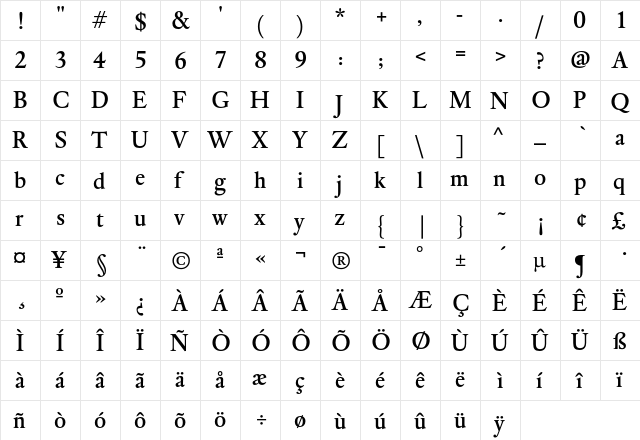
DTL Elzevir T Medium Font Preview
DTL Elzevir T Medium
Design Context for DTL Elzevir Typeface
DTL Elzevir takes a measured approach to typography — its balanced proportions and neutral character make it a reliable workhorse for both digital and print work.